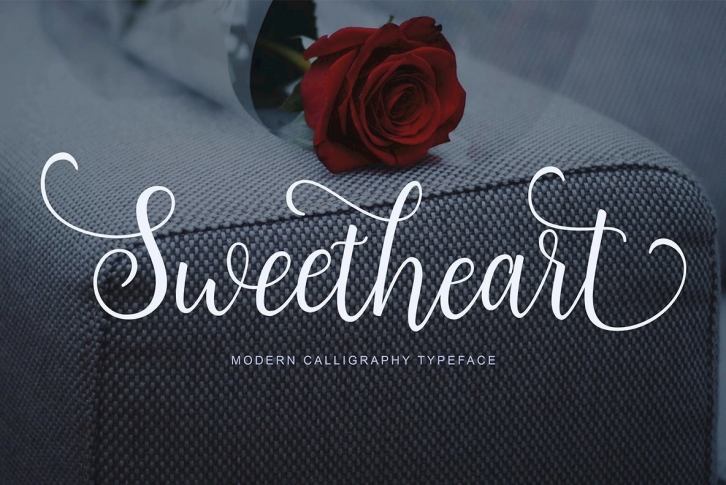
Sweetheart is an elegant script design, published by Unicode Studio.
- Initial Alternates
- Contextual Alternates
- Standard ligatures
- Stylistic sets
- Basic Latin A-Z and a-z
- International Symbols Support